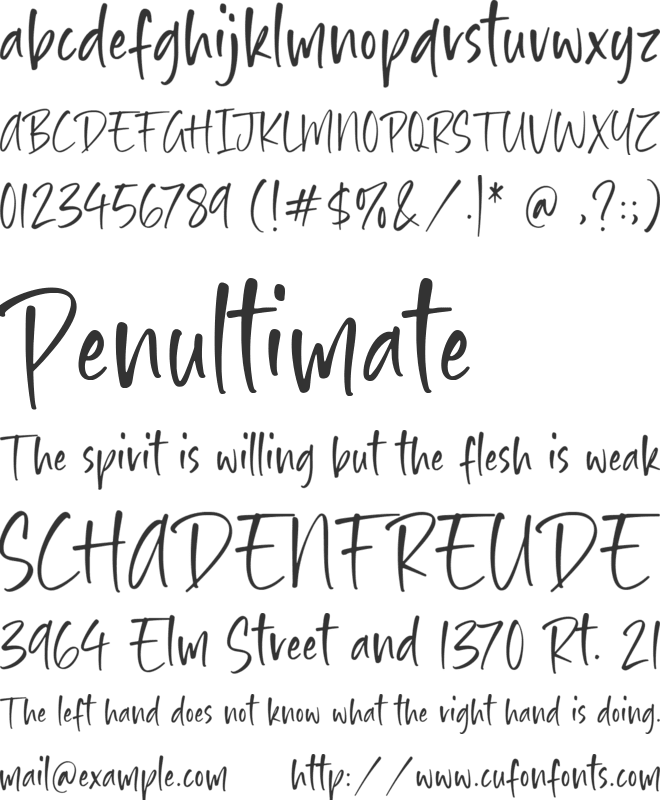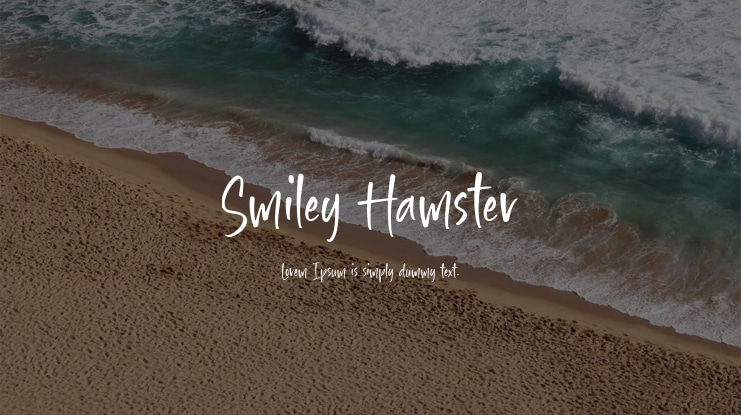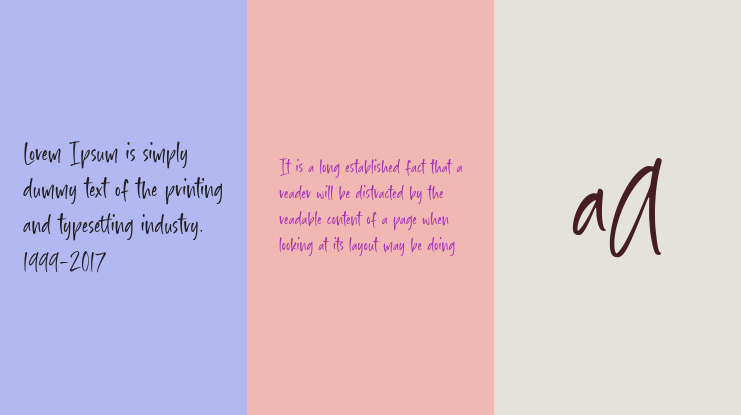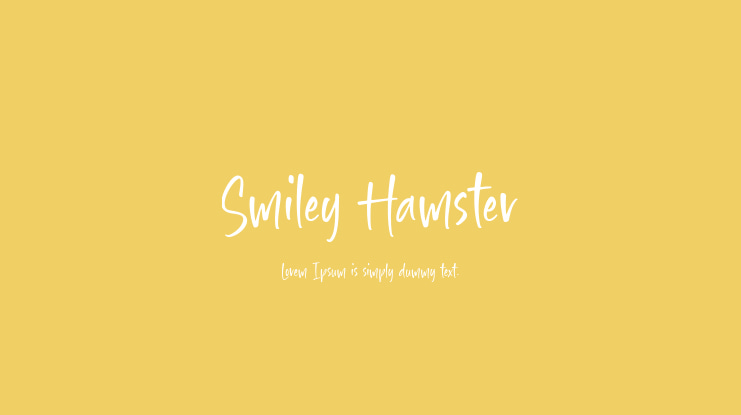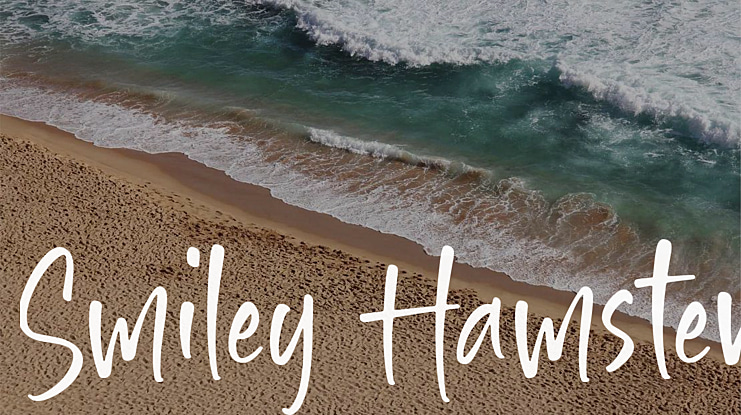
Smiley Hamster Font
Smiley Hamster Handwritten Font is a modern and fresh script font that will add a warm and inviting feel to your business. You can make the most of this font and witness its magic firsthand.
Smiley Hamster Font is perfect for various purposes such as product packaging, branding projects, magazines, social media, weddings, or simply to highlight words on a background.
Key features of Smiley Hamster Font include: